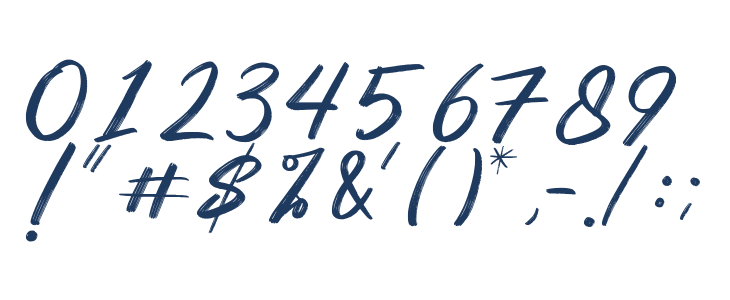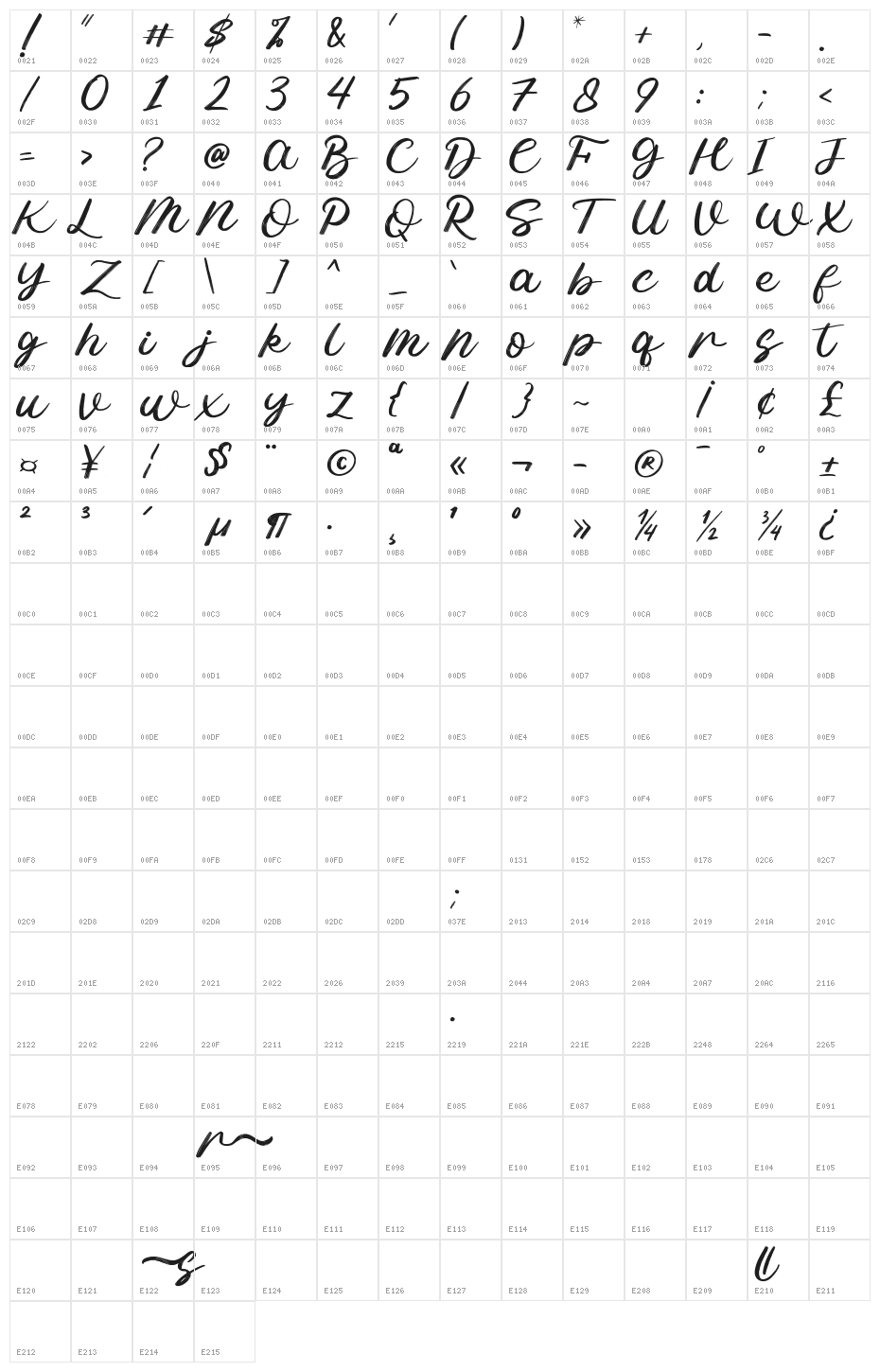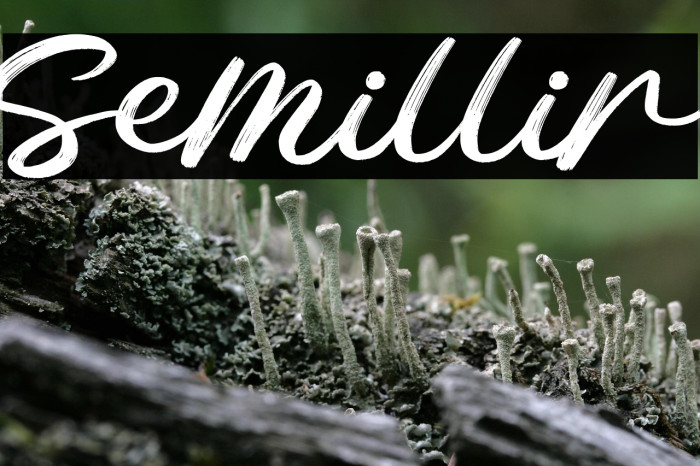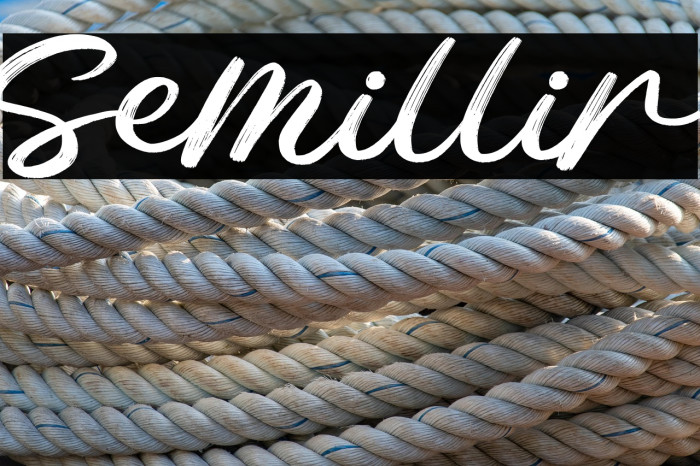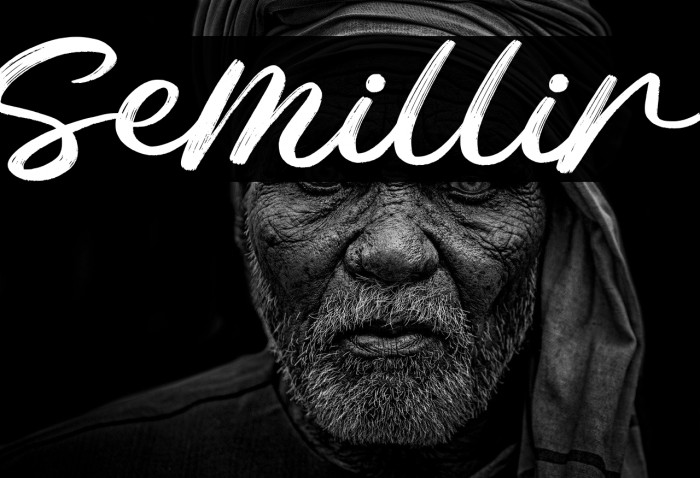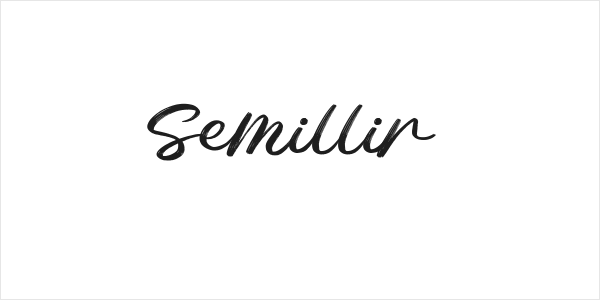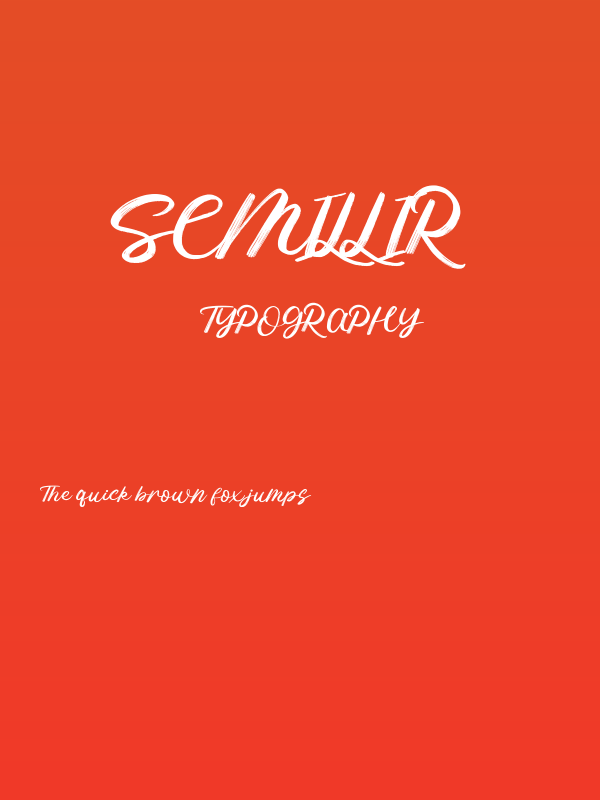
Semillir Font
Semillir Description
This font features a dynamic and fluid script style, characterized by its elegant, cursive letterforms. The strokes are smooth and connected, giving it a handwritten appearance that exudes sophistication and charm. The uppercase letters are slightly more formal, while the lowercase letters maintain a consistent flow, enhancing readability. Numerals and special characters are designed to match the overall aesthetic, ensuring a cohesive look across all text elements. The font's design is versatile, making it suitable for a variety of applications where a personal touch is desired.